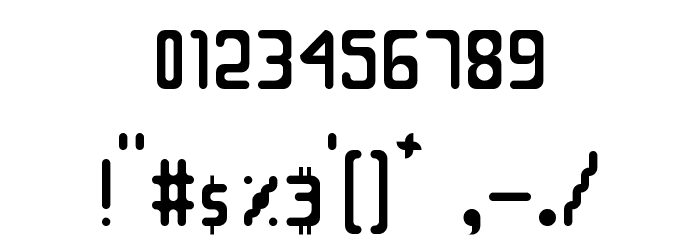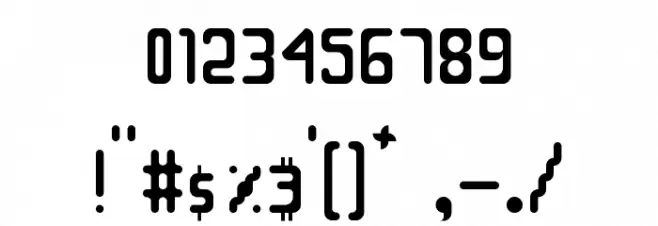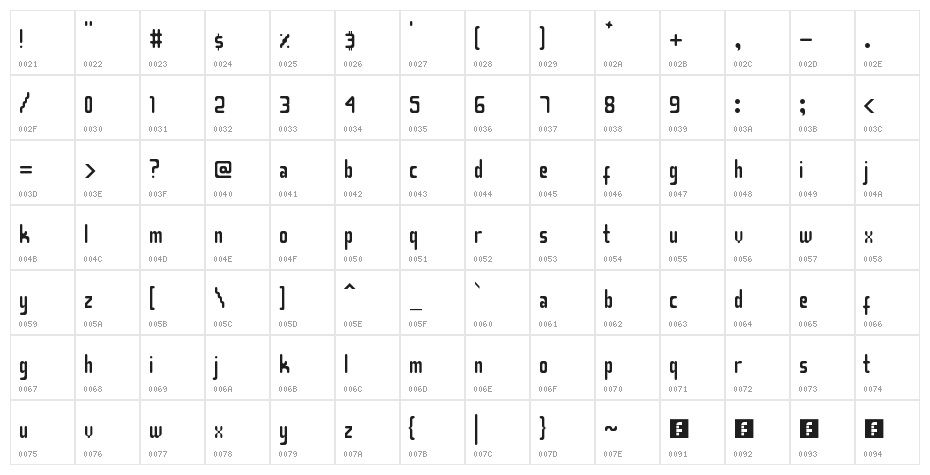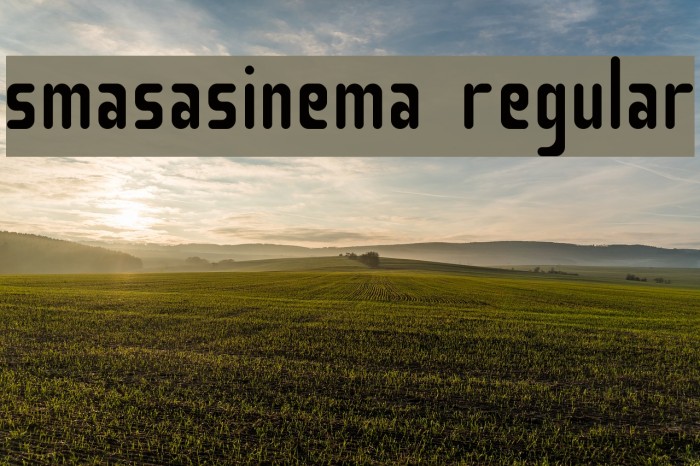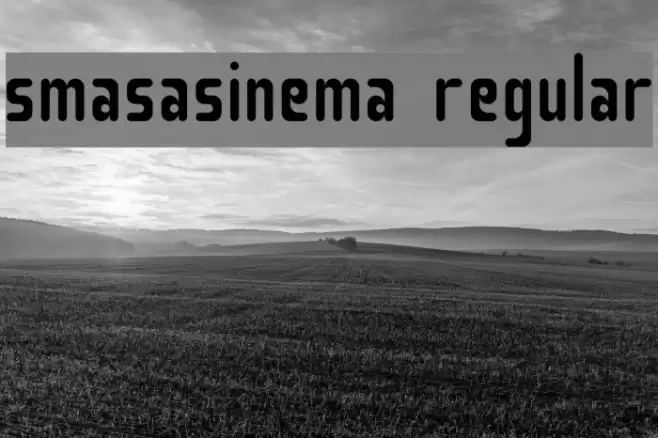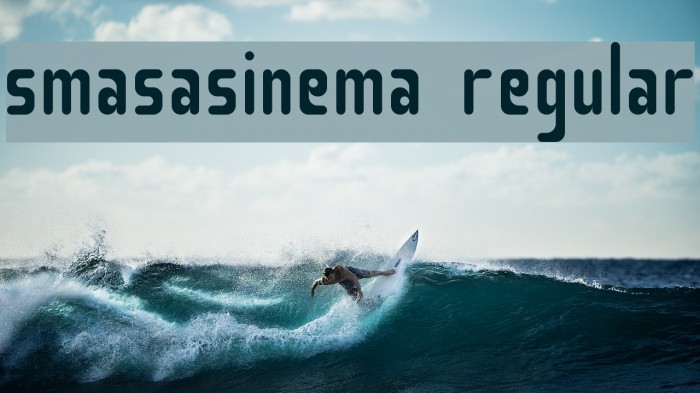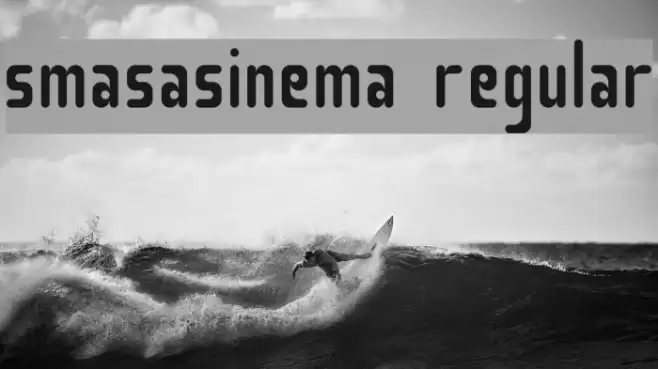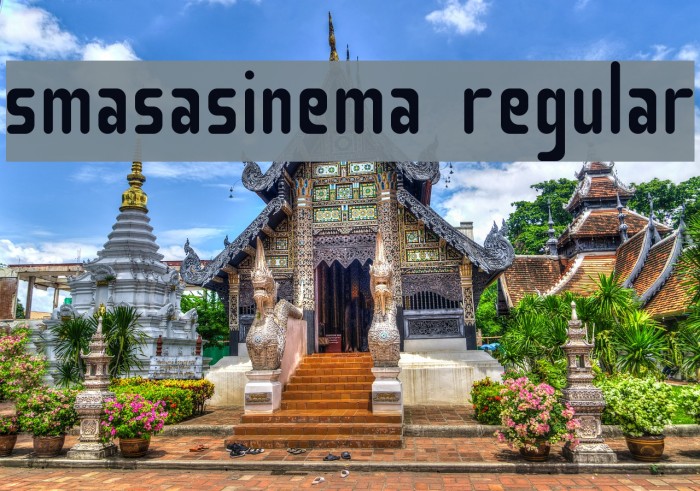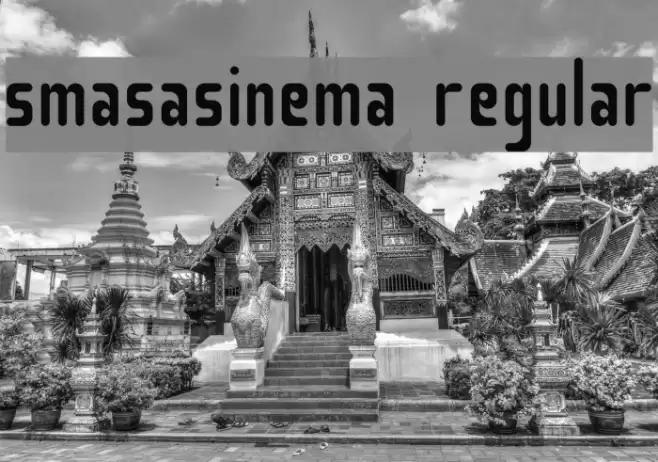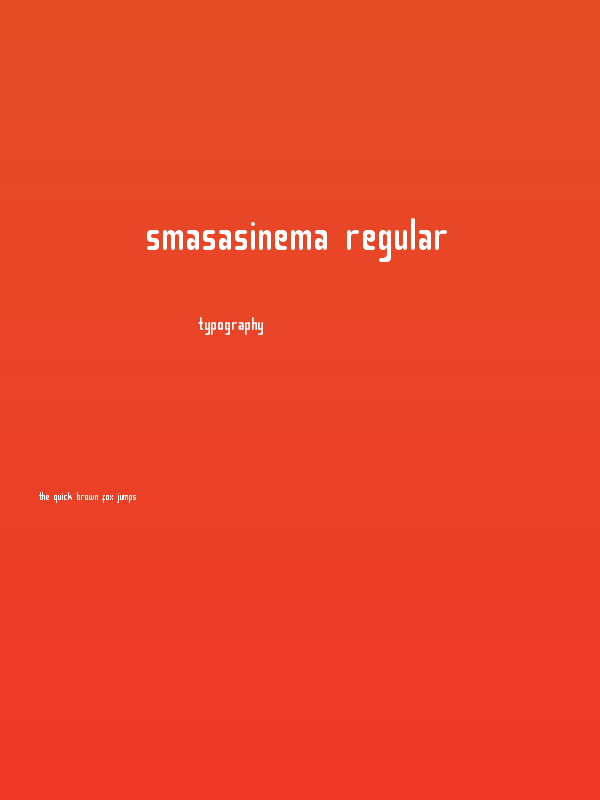
Smasasinema Regular Font
Smasasinema Regular Description
This font features a unique and playful design with rounded edges and a slightly condensed form. The characters are uniform in height, giving it a cohesive and structured appearance. The lowercase letters have a consistent x-height, while the uppercase letters maintain a similar width, creating a balanced look. The numerals are clear and easy to read, with a modern touch. Special characters are distinct, adding to the font's versatility. This style is suitable for creative projects that require a fun and approachable aesthetic.
| Proposed Projects | Ideal for children's books, playful branding, casual invitations, and creative posters. |